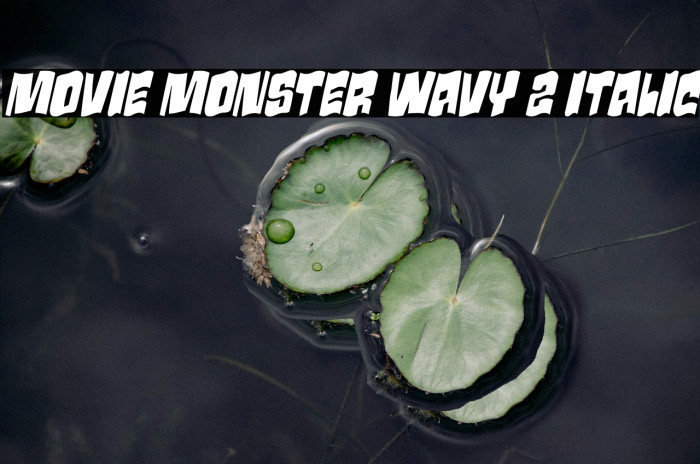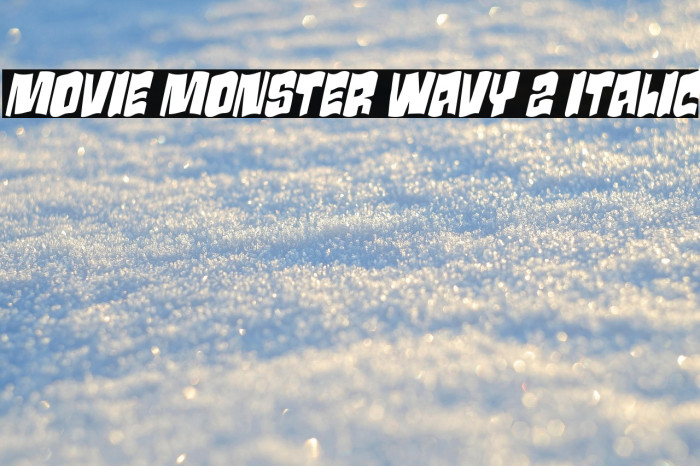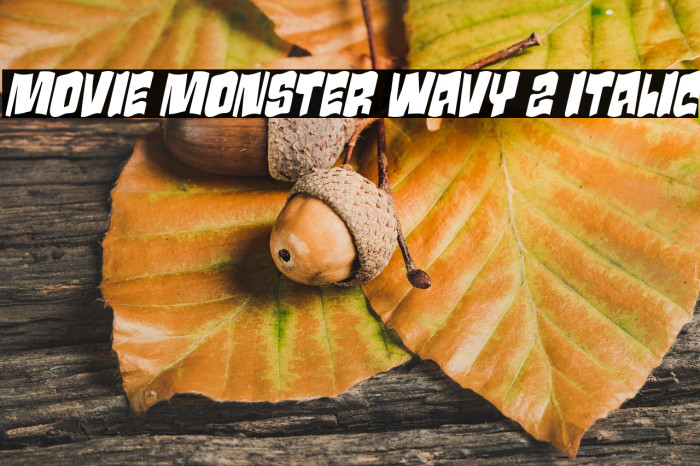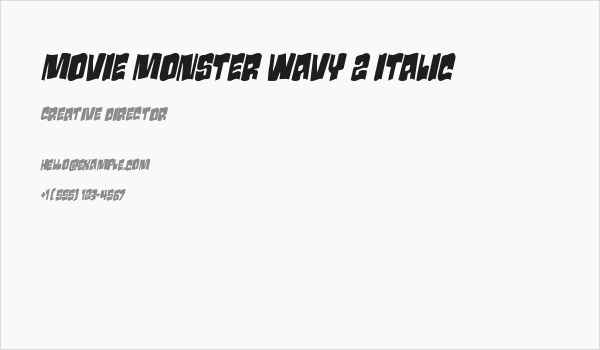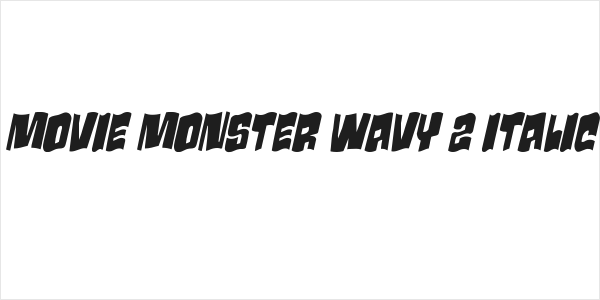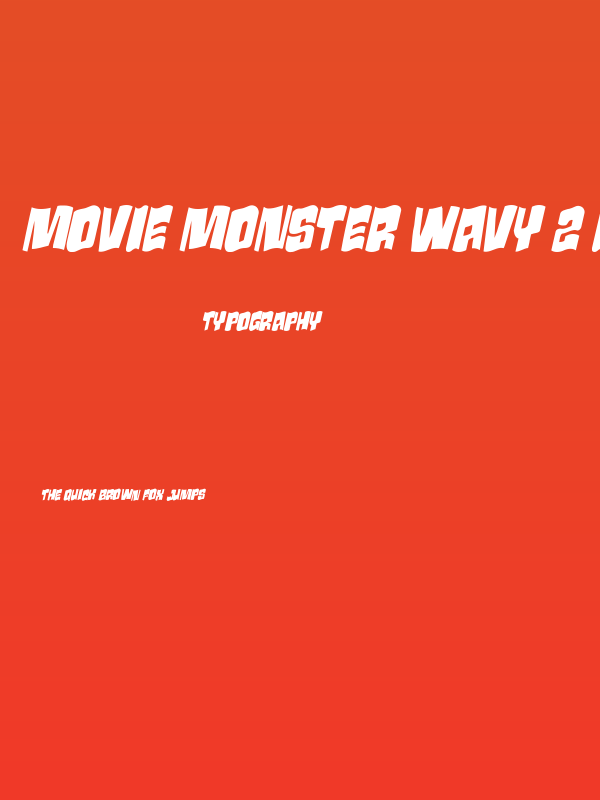
Movie Monster Wavy 2 Italic Font
Movie Monster Wavy 2 Italic Description
This font features a bold and dynamic style with a wavy, italicized appearance. The letters are heavily stylized, giving them a sense of movement and energy. The uppercase and lowercase characters maintain a consistent design, with sharp angles and a slightly distorted look that adds to the overall dramatic effect. The numbers and special characters follow the same aesthetic, ensuring a cohesive look across all text elements. This font is perfect for projects that require a bold statement and a touch of creativity.
| Proposed Projects | Ideal for movie posters, video game titles, Halloween-themed designs, and any project needing a dramatic flair. |